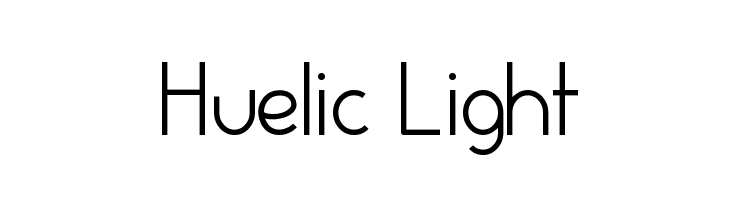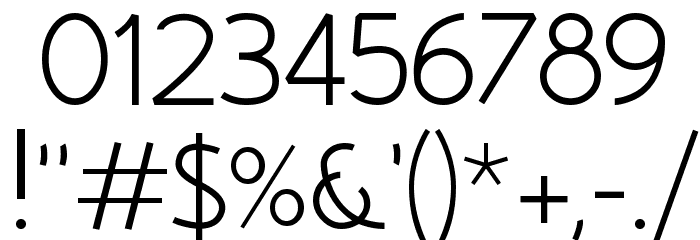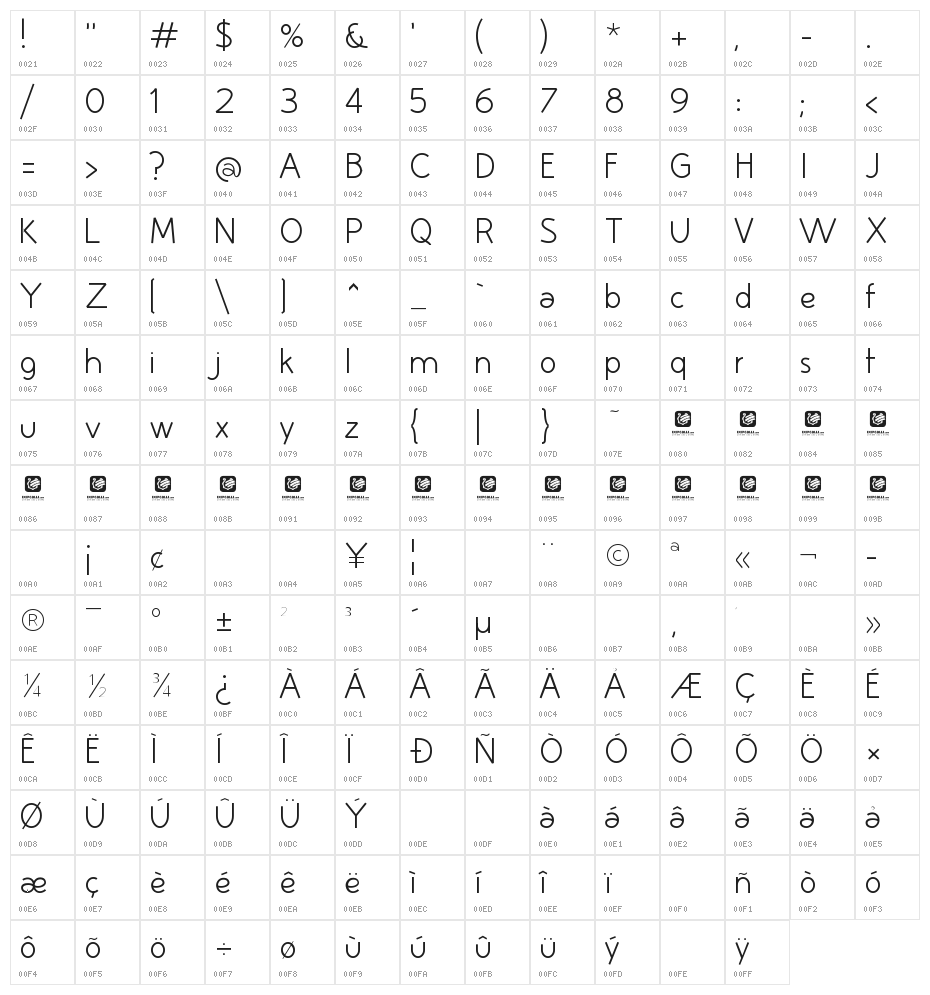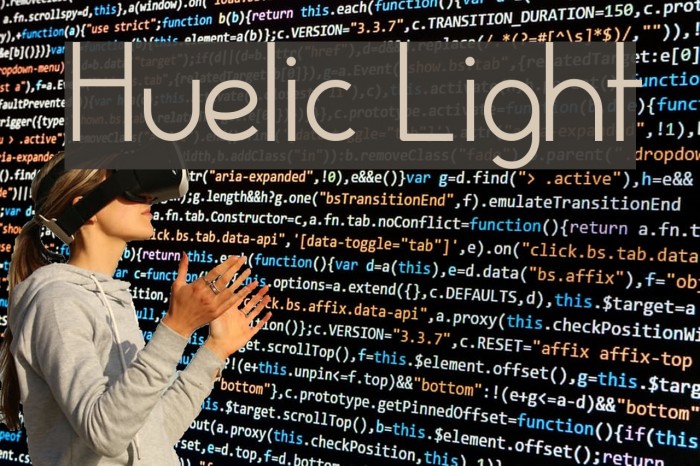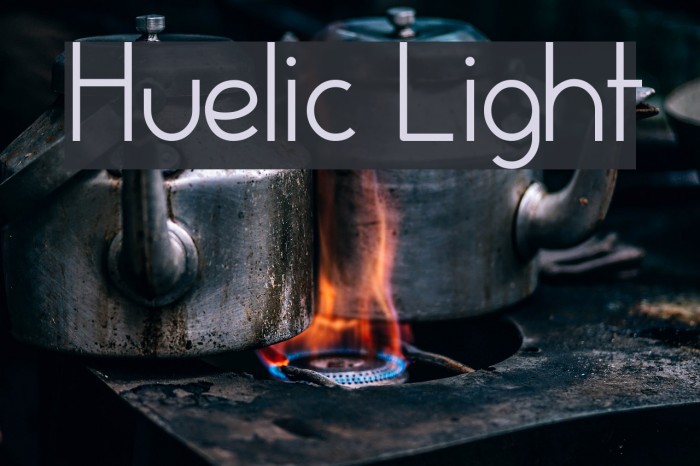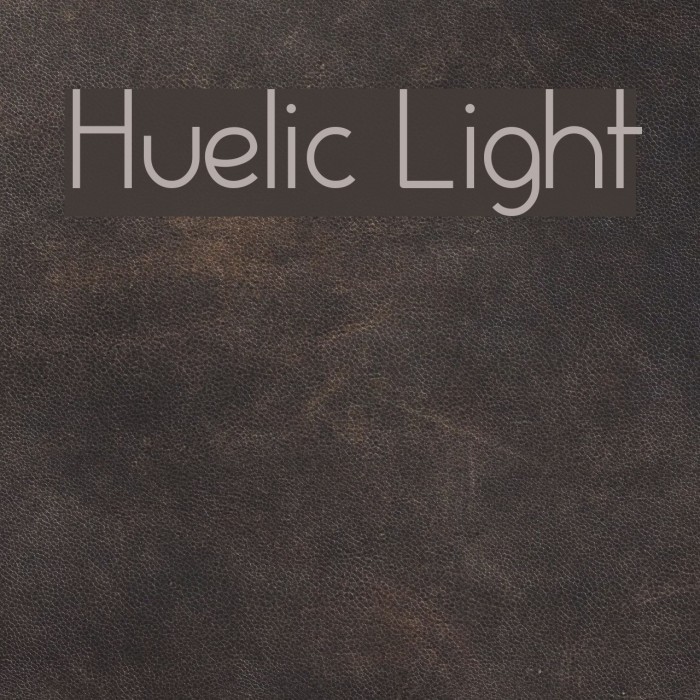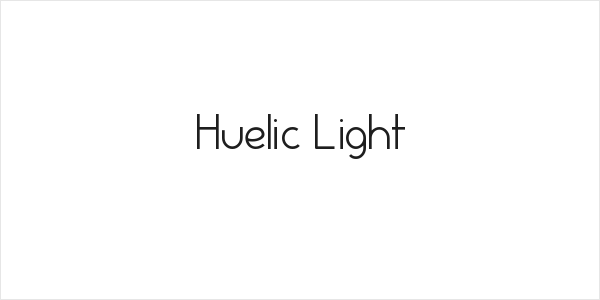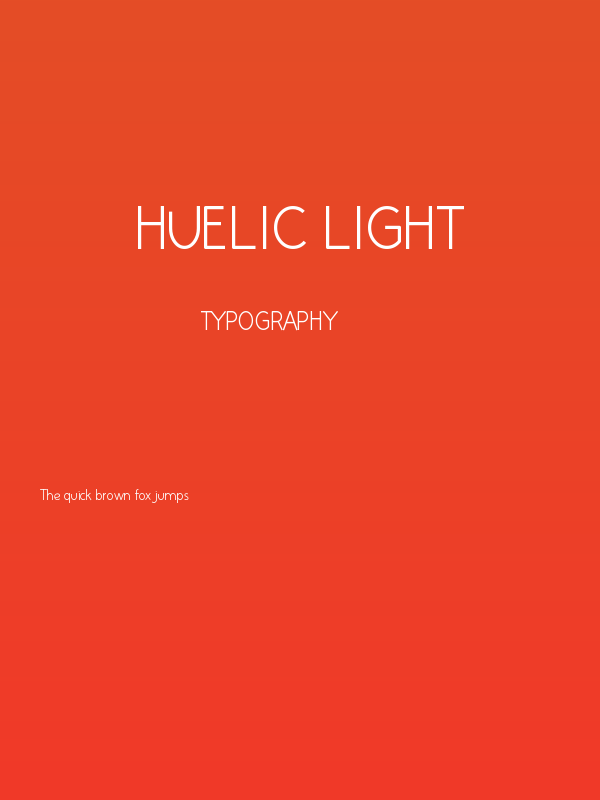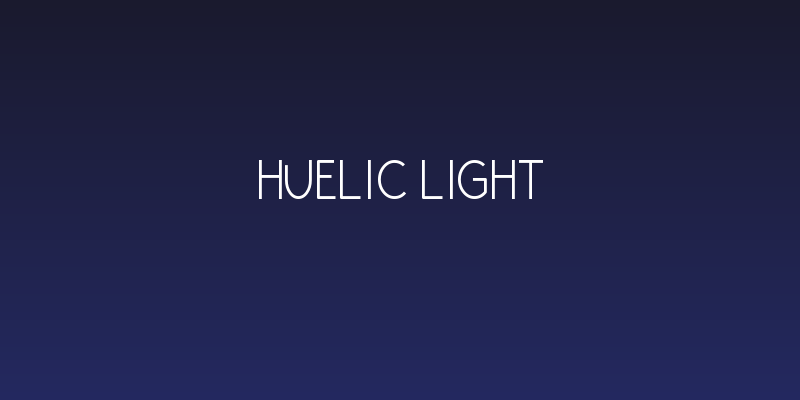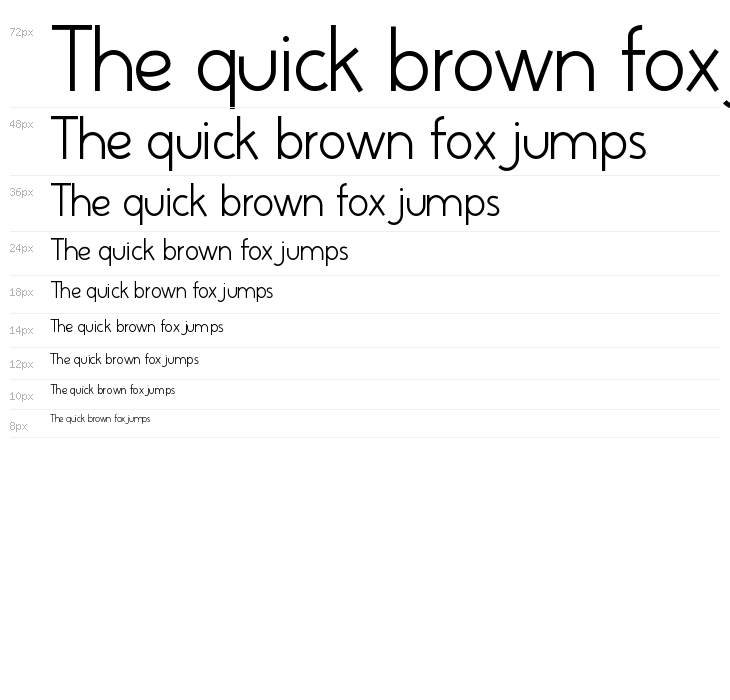
Huelic Light Font
Huelic Light Description
This font features a clean and modern sans-serif design with a light weight, making it ideal for minimalist and contemporary projects. Its characters are evenly spaced, providing a balanced and harmonious appearance. The uppercase and lowercase letters maintain a consistent height and width, contributing to its sleek and streamlined look. The numerals and special characters are designed with the same attention to detail, ensuring readability and aesthetic appeal. This font's simplicity and elegance make it versatile for various applications.
| Proposed Projects | Ideal for branding, web design, editorial layouts, and minimalist posters. |